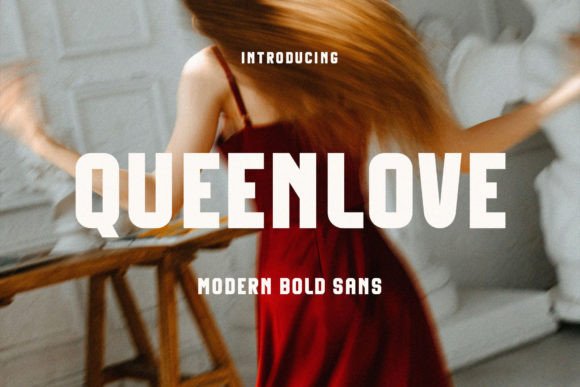
In a world saturated with mediocrity, arise from the ordinary and embrace the regal elegance of Queenlove Font, a modern sans serif font that's not just a typeface; it's a declaration of individuality. With its bold and distinct letterforms, Queenlove Font commands attention, leaving an indelible mark on every design it graces.
Crafted by the visionary minds at BrandSemut, Queenlove Font is a masterpiece of digital artistry, a symphony of curves and angles that dance together in perfect harmony. Each letter is meticulously designed to strike a balance between boldness and finesse, resulting in a font that exudes both strength and grace.
Immerse yourself in the versatility of Queenlove Font, a font that adapts effortlessly to a myriad of design styles. Whether you're crafting eye-catching logos, captivating posters, or elegant invitations, Queenlove Font rises to the occasion, adding a touch of sophistication and uniqueness to every project.
Experience the allure of Queenlove Font in your logotype designs. Its distinct letterforms will make your brand shine, etching its name into the minds of your audience. Create logos that exude confidence, power, and an unwavering sense of style.
Unleash your creativity with Queenlove Font, a font that empowers you to craft spectacular designs that tell a story, evoke emotions, and leave a lasting impression. Let your imagination soar as you witness the transformation of ordinary words into captivating masterpieces.
Don't settle for the mundane; embrace the extraordinary with Queenlove Font. Its modern aesthetic and undeniable charm will elevate your designs to new heights, leaving your audience spellbound.